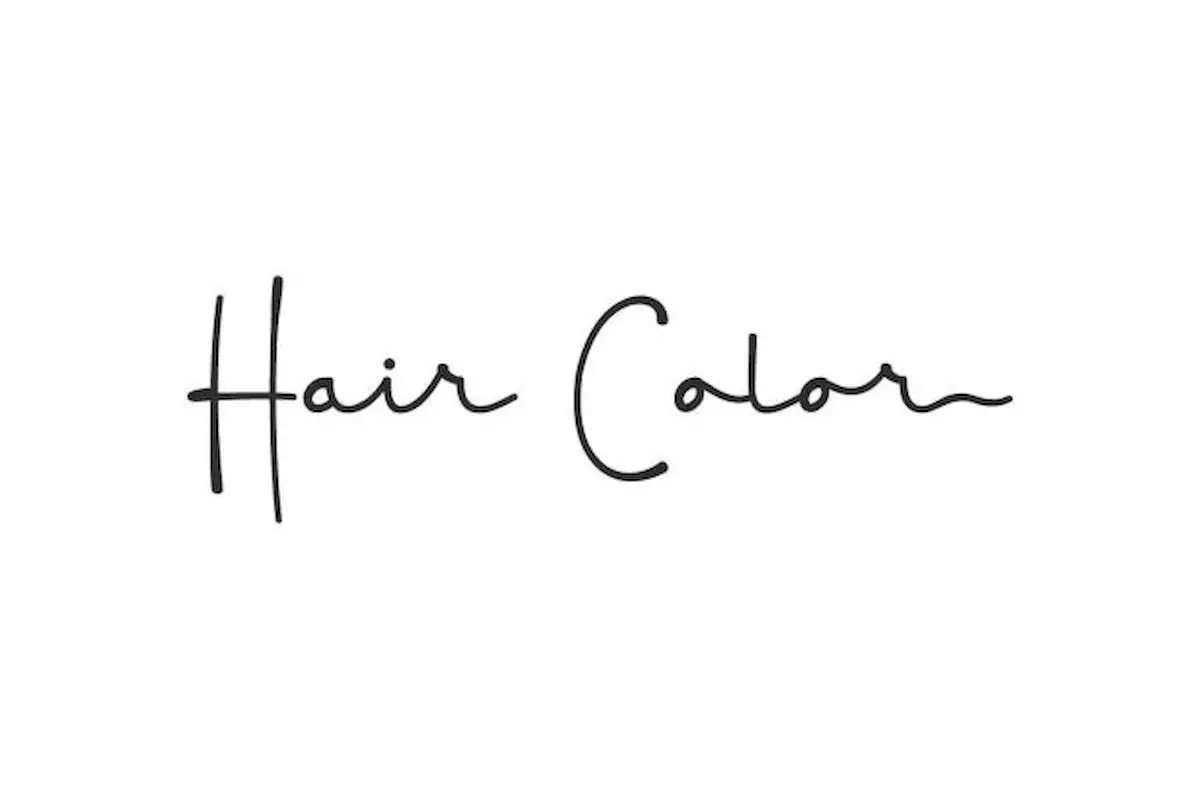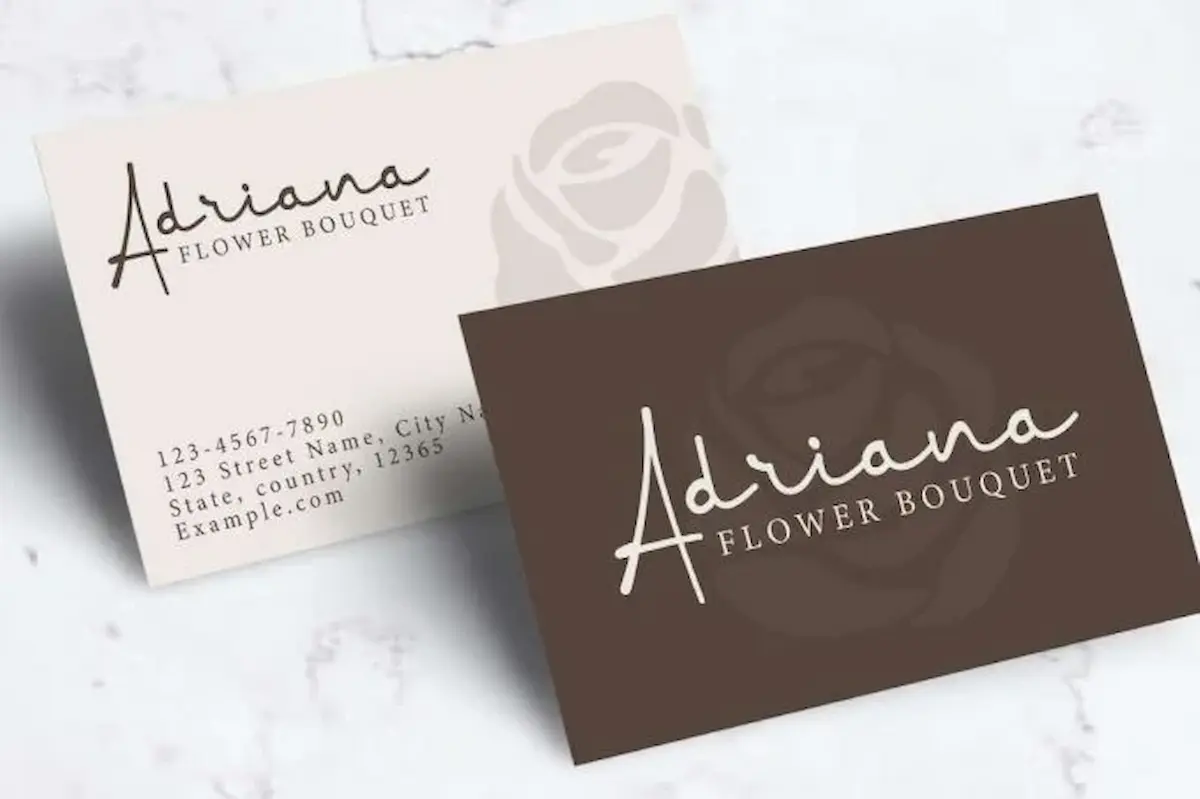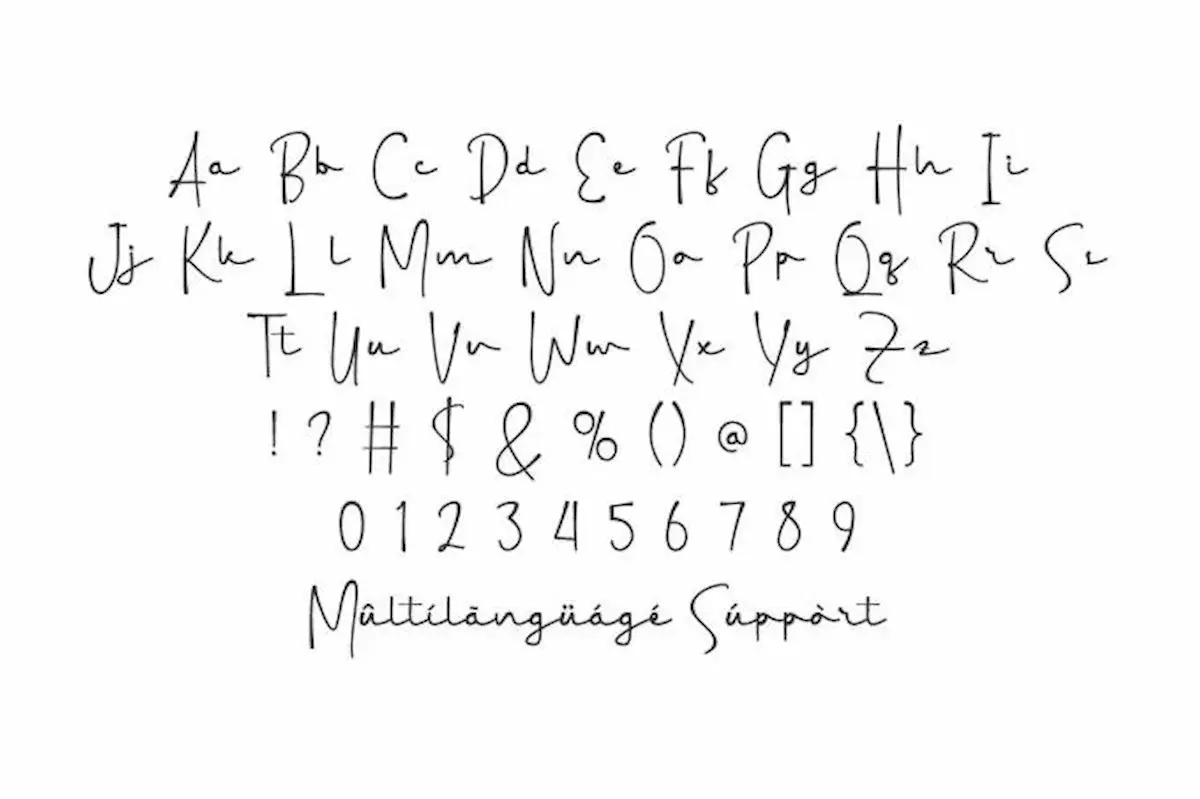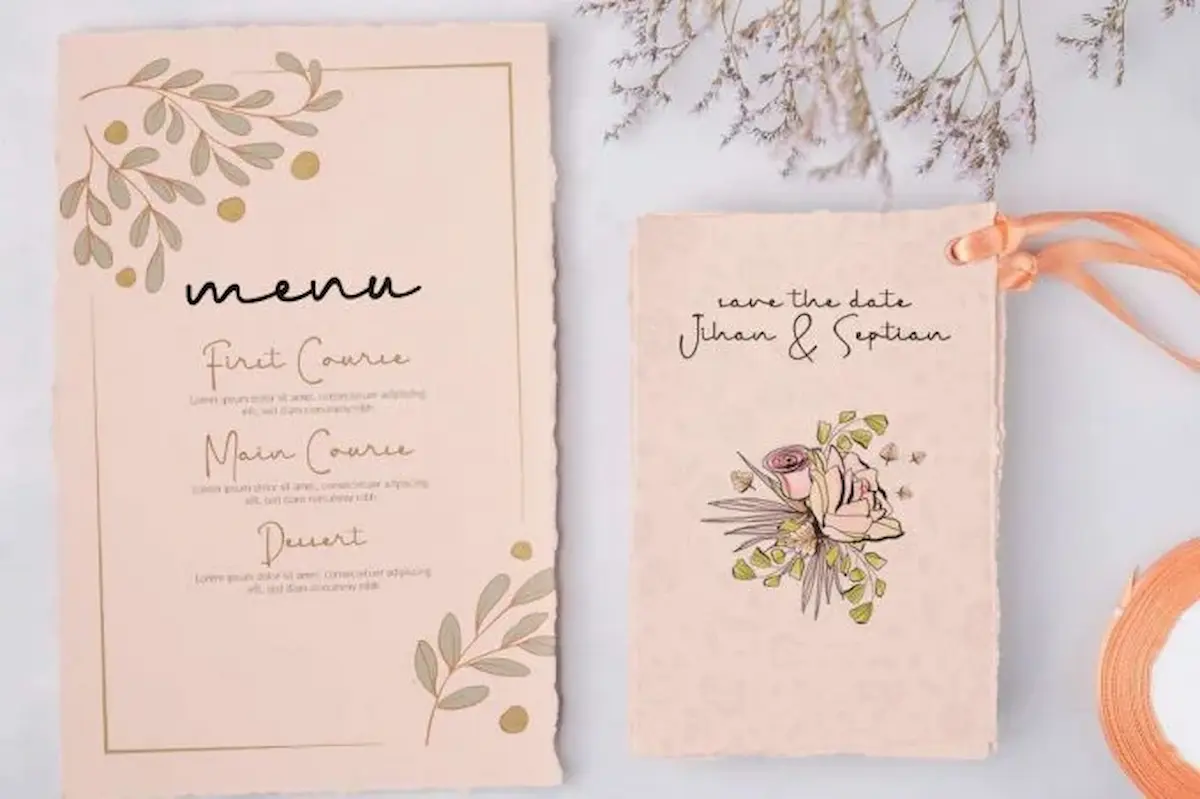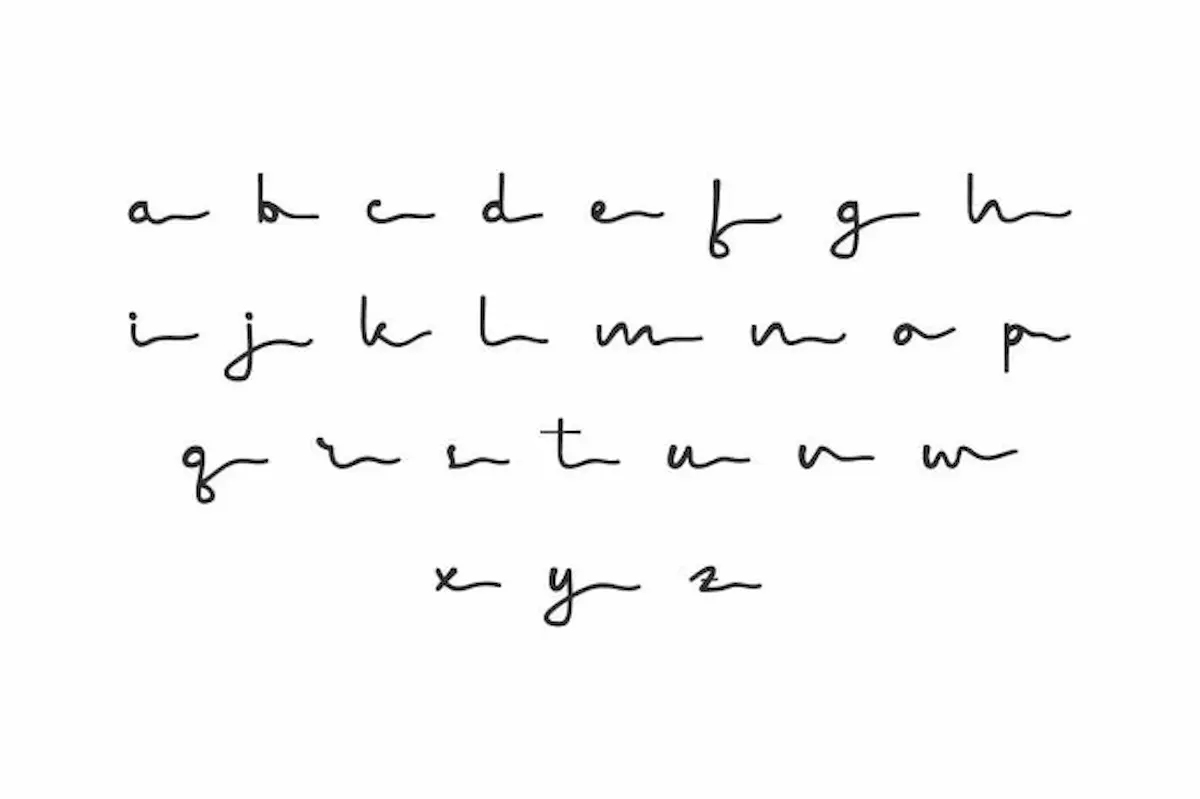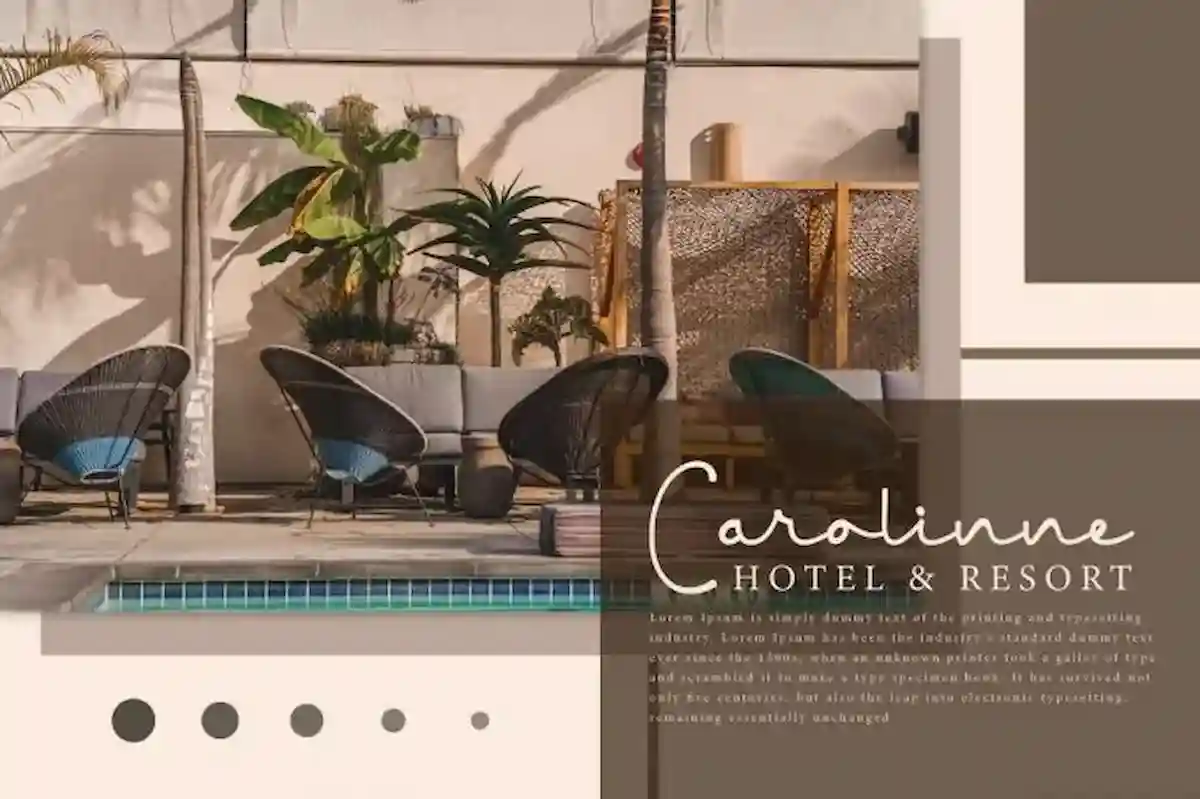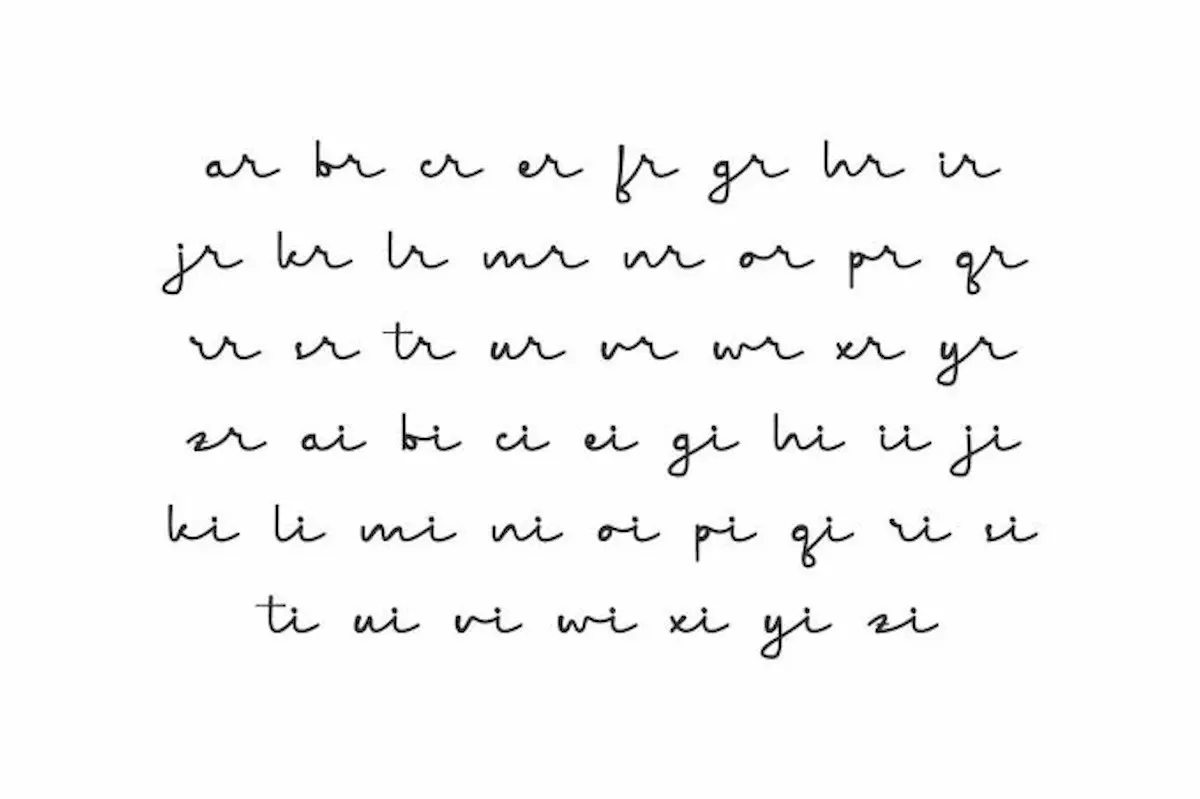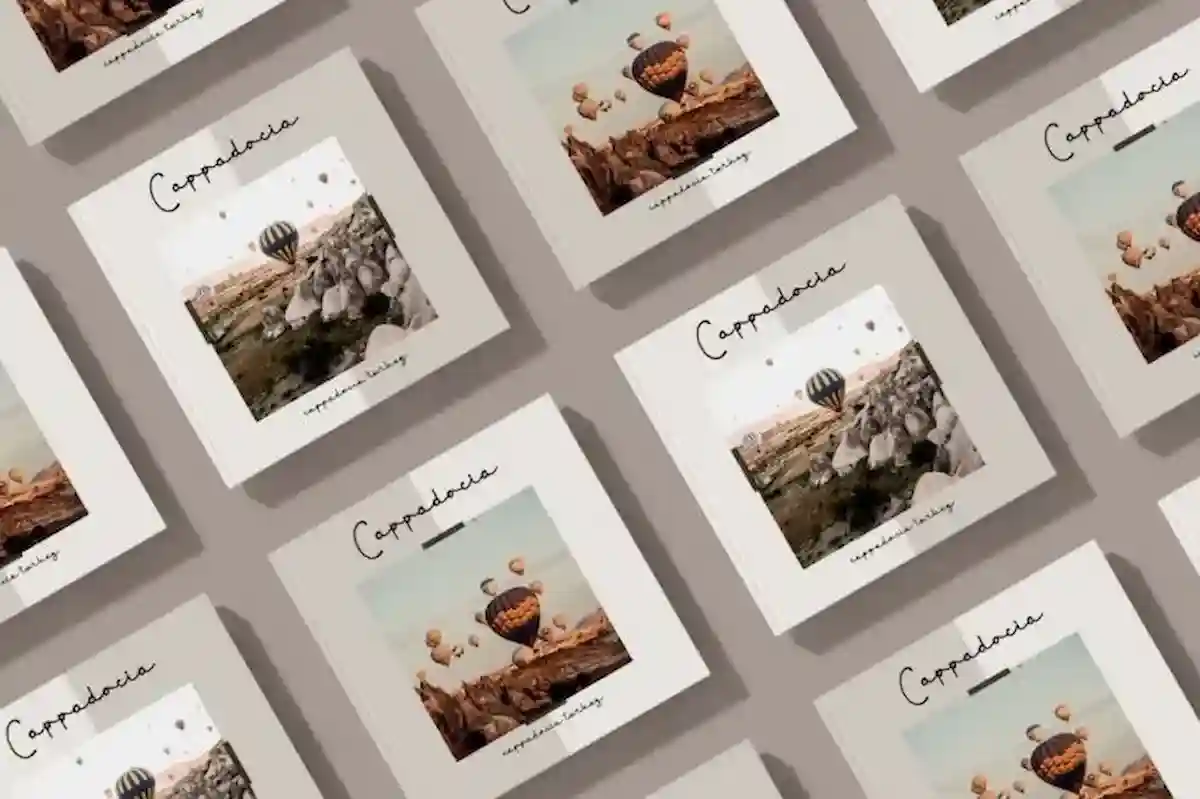
Hair Color Font is a stylish handwriting inspired by liquid pen writing style which is suitable for flower business, label, menu, restaurant, stationery, wedding organizer, etc.
Hair Color Font is a casual handwritten script with irregular thin thick lines make it perfect and flowing, created by NihStudio. It will be suitable for any industry such as, cosmetic, florist, homeware, photography, resort, salon, wedding, writer, etc.
Hair Color Font ready to use for all types of work projects such as, blog headers, brand logo, business card, heading, magazine, menu, print materials, quotes, etc.
Hair Color Font comes with a full set of Uppercase and Lowercase Basic Characters, Number, a large range of Punctuation and Symbol, Alternate, Ligature, and also supports multilingual characters. Ready to use both on Windows machine or Mac with simple installations. It’s tested to work well in the Adobe Apps (Illustrator, Adobe InDesign, Adobe Photoshop) CorelDraw, and others. PUA Encode Characters means you can access all the glyphs and other additional characters easily – Fully accessible without additional design software.